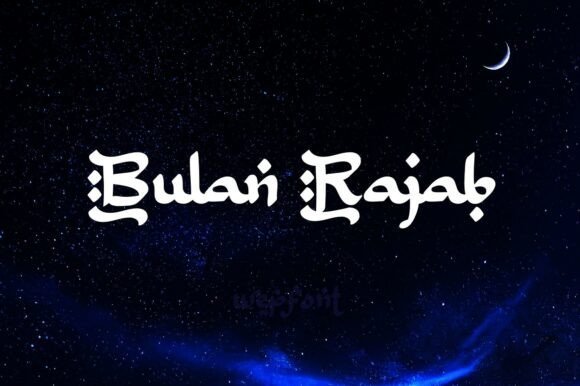
Introduction to Bulan Rajab Font
Uncover the enchanting charm of β€œBulan Rajab,” an exquisite display font that blends exquisite elegance, age-old custom, and mystique.
With its elaborate calligraphic strokes adorned with unique embellishments, this typeface evokes a bygone, celestial environment reminiscent of classic scripts Its meticulous construction exudes sophistication and cultural relevance, ideal for endeavors that aim to inspire veneration, historical ties, or simply the intrigue of the unknown.